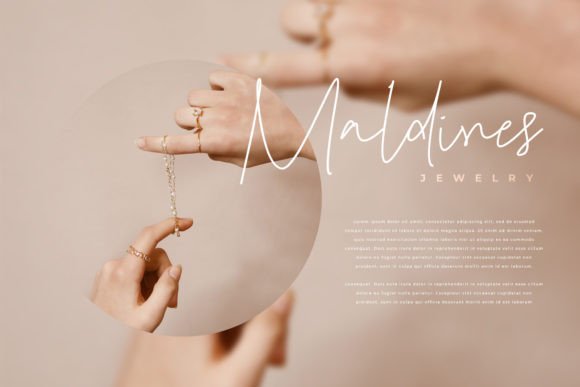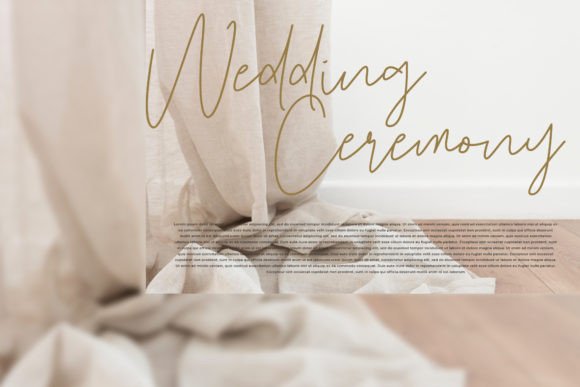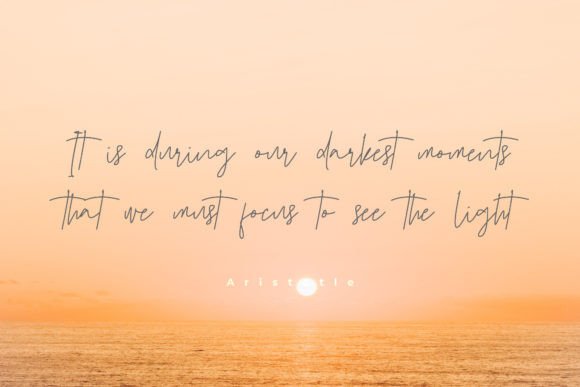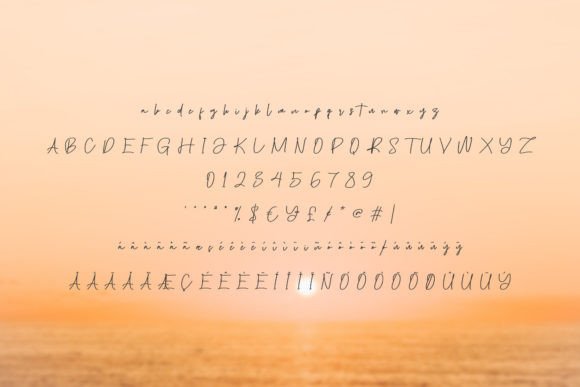
Cafedream Font: Elevate Your Designs with a Stylish Script Monoline
In the world of design, typography plays a crucial role in conveying messages, expressing emotions, and creating a lasting impression. For designers and crafters looking for a font that exudes elegance, sophistication, and a touch of whimsy, Cafedream Font is an excellent choice. This stunning script monoline font is perfect for a wide range of applications, from photography and social media to music covers, branding, products, and handwritten projects.
What is Cafedream Font?
Cafedream Font is a beautifully crafted script monoline font that boasts a stylish and modern aesthetic. Its sleek lines, fluid curves, and elegant swashes make it an ideal choice for designers seeking to add a touch of sophistication to their work. The font’s monoline design ensures that it remains versatile and adaptable, suitable for various design applications.
Key Features of Cafedream Font
- Stylish Script Monoline: Cafedream Font features a stylish script monoline design that is both elegant and modern.
- Highly Versatile: The font’s adaptability makes it perfect for a wide range of design applications, from digital to print.
- Elegant Swashes: The font’s swashes add a touch of whimsy and sophistication, making it ideal for designs that require a bit of flair.
- Easy to Read: Despite its elegant design, Cafedream Font remains highly legible, making it suitable for body text and headlines.
Use Cases for Cafedream Font
Cafedream Font is an incredibly versatile font that can be used in a variety of design applications, including:
- Photography: Use Cafedream Font to add a touch of elegance to your photo titles, captions, and quotes.
- Social Media: Elevate your social media posts with Cafedream Font, making your content stand out in a crowded feed.
- Music Covers: Create stunning music covers with Cafedream Font, adding a touch of sophistication to your album art.
- Branding: Use Cafedream Font to create a cohesive brand identity that exudes elegance and refinement.
- Products: Add a touch of whimsy to your product labels, packaging, and marketing materials with Cafedream Font.
- Handwritten Projects: Create beautiful handwritten projects, such as invitations, cards, and journals, with Cafedream Font.
Tips for Using Cafedream Font
| Font Name | Cafedream Font |
| Author | jadatype |
Cafedream Font is a stunning script monoline font that is perfect for designers and crafters looking to add a touch of elegance and sophistication to their work. Its versatility, adaptability, and beautiful design make it an excellent choice for a wide range of design applications. Whether you’re working on photography, social media, music covers, branding, products, or handwritten projects, Cafedream Font is sure to elevate your designs and leave a lasting impression.